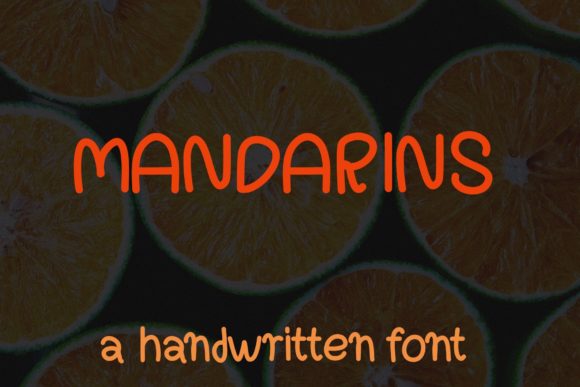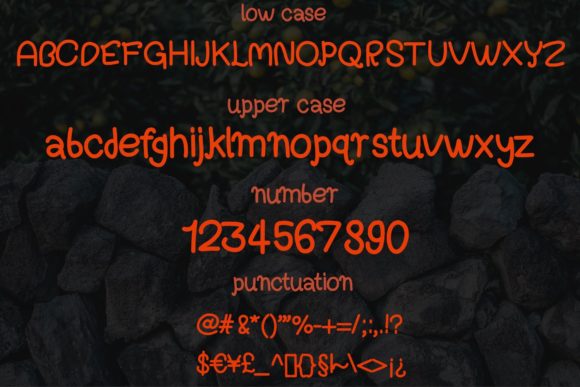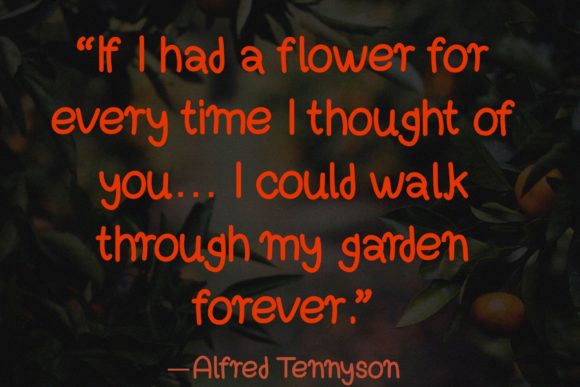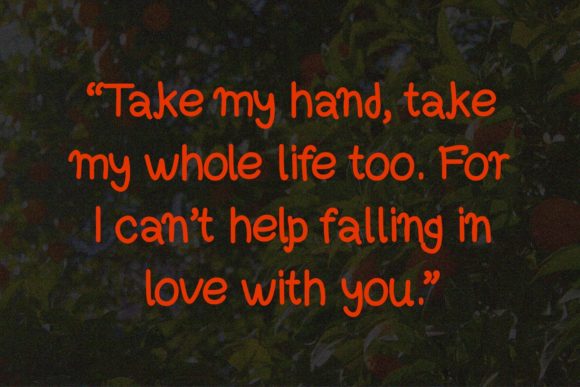
Mandarins
About Mandarins Font
Mandarins is a sweet and friendly handwritten font. Its natural and unique style makes it incredibly fitting to a large pool of designs. The only limit is your imagination!